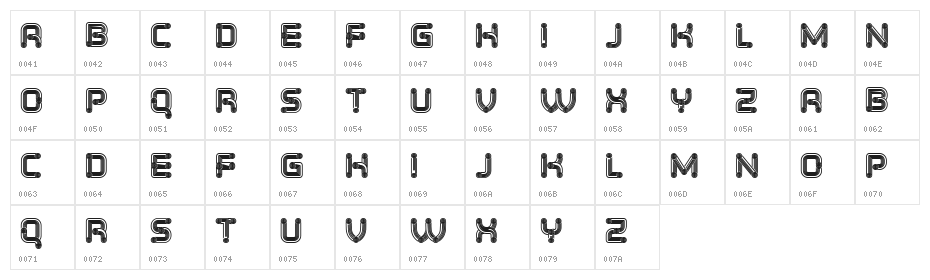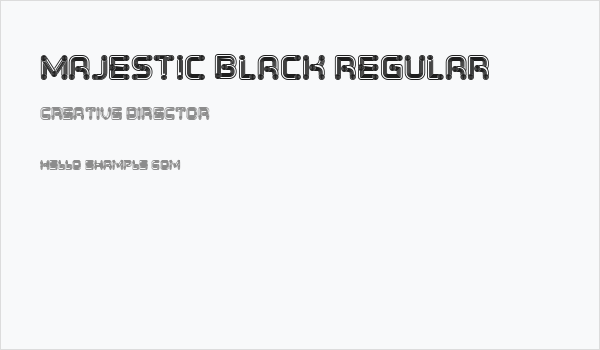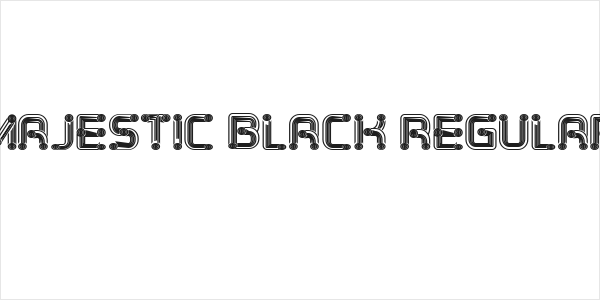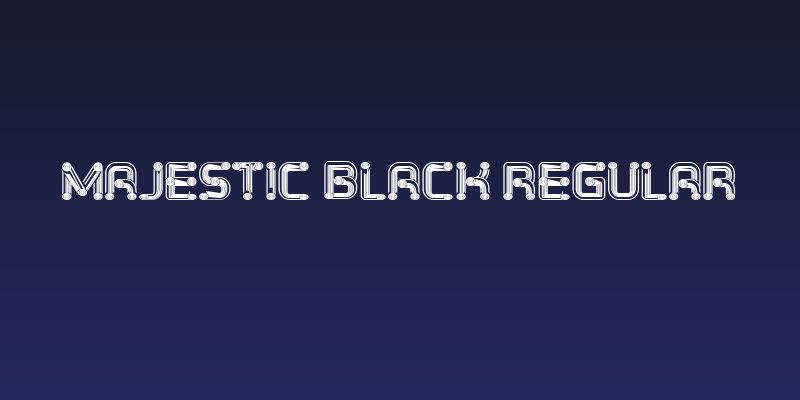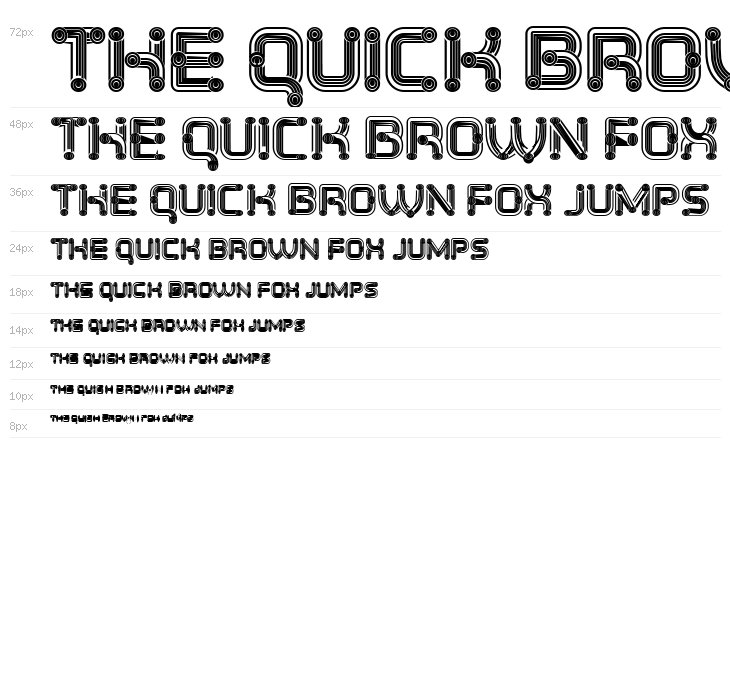
Majestic Black Regular Font
Majestic Black Regular Description
This font features a bold and intricate design with a futuristic and mechanical aesthetic. Each character is composed of multiple parallel lines and circular elements, creating a sense of depth and complexity. The geometric structure is consistent across all letters, providing a cohesive and uniform appearance. The font's unique style makes it stand out, with its detailed and layered look that resembles circuit patterns or industrial designs. It is both eye-catching and distinctive, suitable for projects that require a modern and technological feel.
| Proposed Projects | Ideal for technology branding, sci-fi posters, video game titles, and modern art installations. |